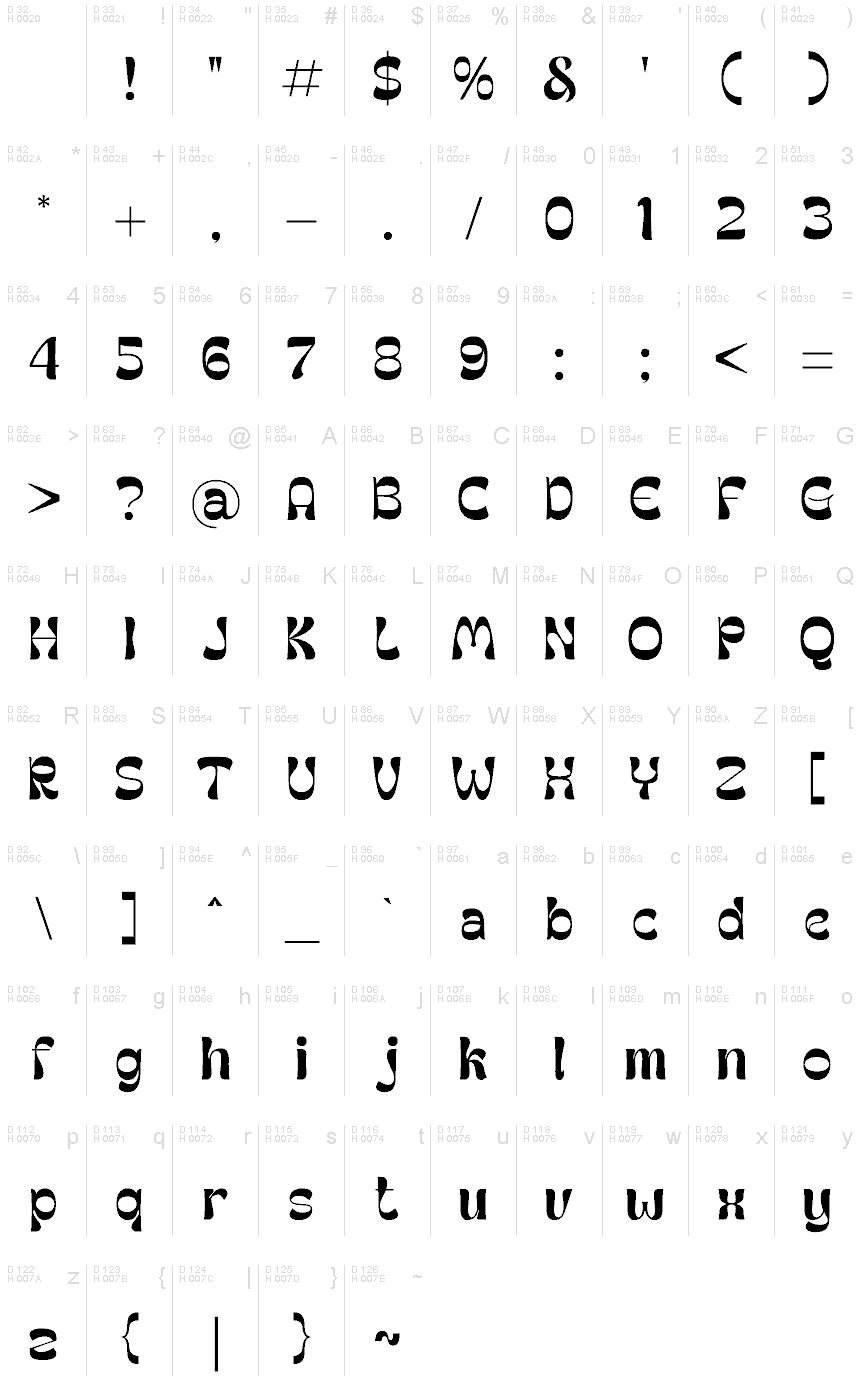
Groothe
Groothe font by Storytype Studio is a groovy display font with retro influences and distinctive cutout designs. Its geometric modern twist infuses an artistic flair, perfect for innovative branding. Inspired by bold ideas, this font was created to do the talking so you don’t have to.
Use the free font for titles, headers, sub-headers, posters and flyer designs, magazine covers and features, apparel items like T-shirts or socks patterns. Showcase it in branding and packaging projects such as music albums covers or food packages labels with typography art as centrum point of attention!